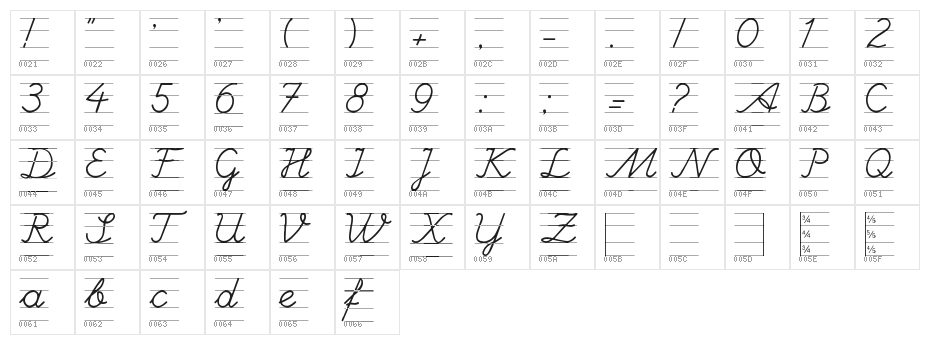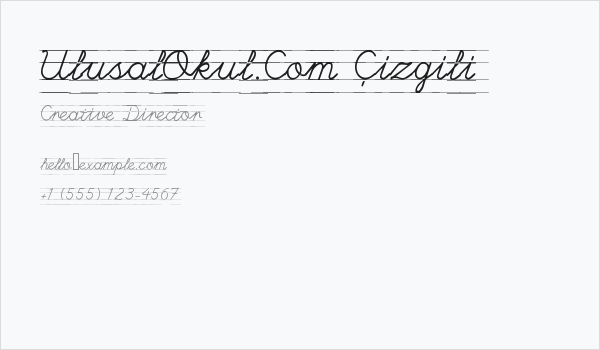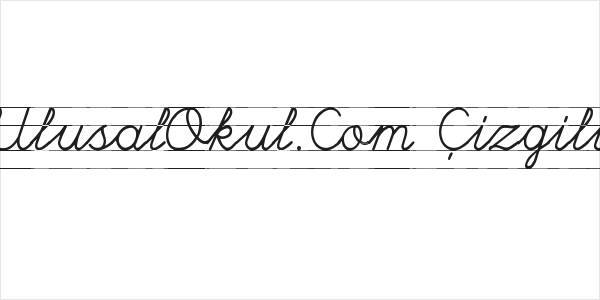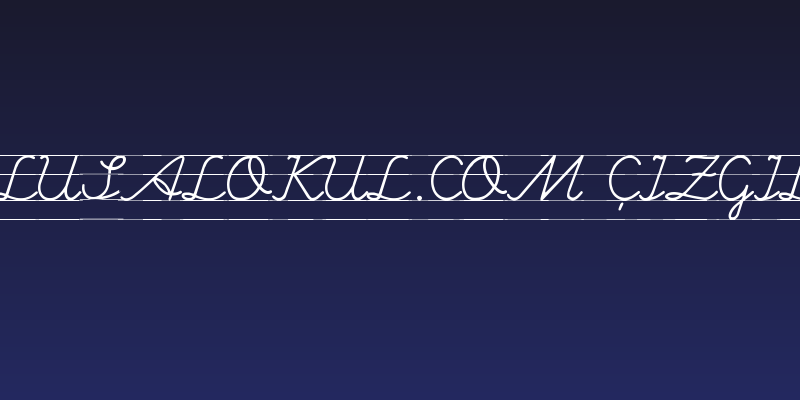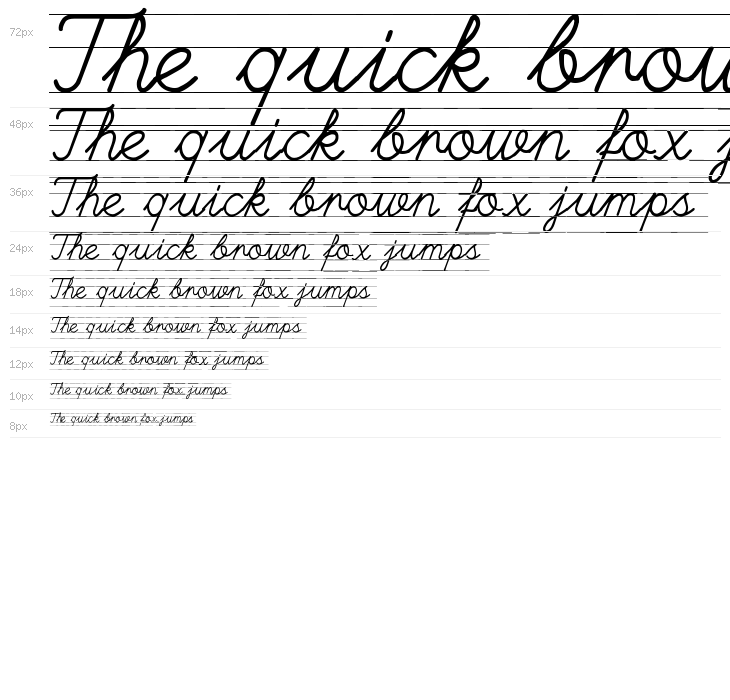
UlusalOkul.Com Çizgili Font
UlusalOkul.Com Çizgili Description
This font features a classic cursive style with elegant, flowing lines that mimic traditional handwriting. The uppercase letters are slightly more ornate, with flourishes that add a touch of sophistication. The lowercase letters maintain a consistent slant, providing a harmonious and fluid appearance. The numerals are clear and legible, complementing the overall script style. Special characters are integrated seamlessly, maintaining the cursive aesthetic. The font's design is reminiscent of traditional penmanship, making it suitable for projects that require a personal or formal touch.
| Use Case | Logos, Invitations, Personal Correspondence |
| Proposed Projects | Ideal for wedding invitations, greeting cards, personal letters, and branding materials that require a touch of elegance. |